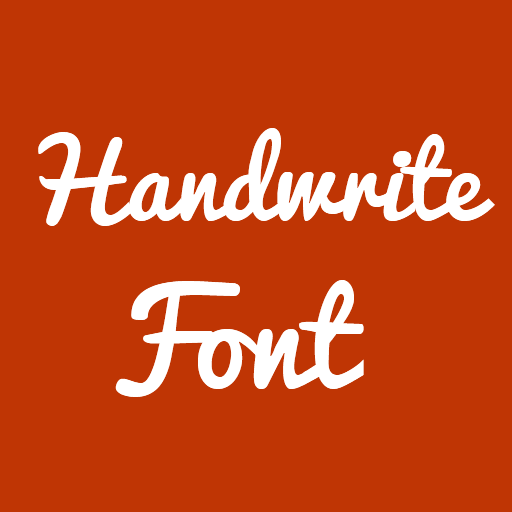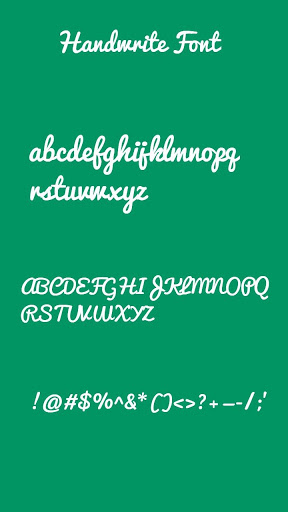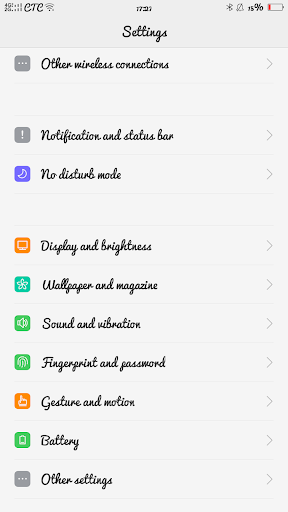
Handwritten Font for Oppo Phone
Description of Handwritten Font for Oppo Phone
This application is a free package of comic font, for you to change the font appearance of your Android cellphone or tablet.